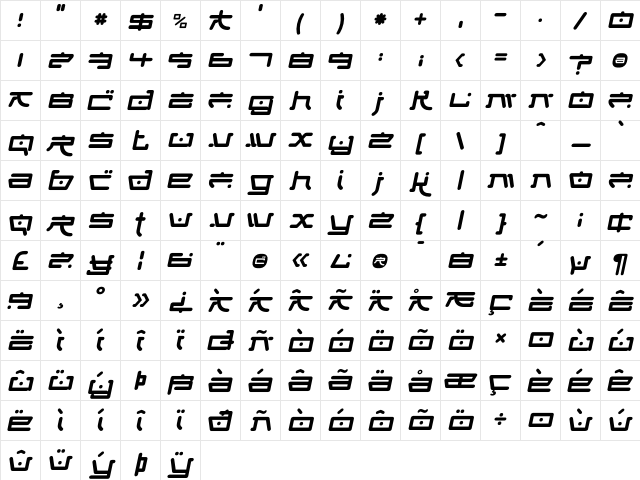
FungFoo Italic
Design Context for FungFoo Typeface
FungFoo has an approachable, lighthearted character — its loose, expressive forms are well-suited to children's content, casual branding, and fun-first design. Its italic angle brings a sense of urgency and motion to the letterforms.
Well-suited to food and beverage brands with personality, educational materials, and fun-forward identities.
Font Pairing: Pairs well with a rounded or humanist sans for body copy, maintaining the friendly tone without relying on FungFoo to carry extended reading.
Pro Tip: Use FungFoo at larger display sizes where its expressive character can land. Pair with a clean, simple sans for body copy to maintain readability.